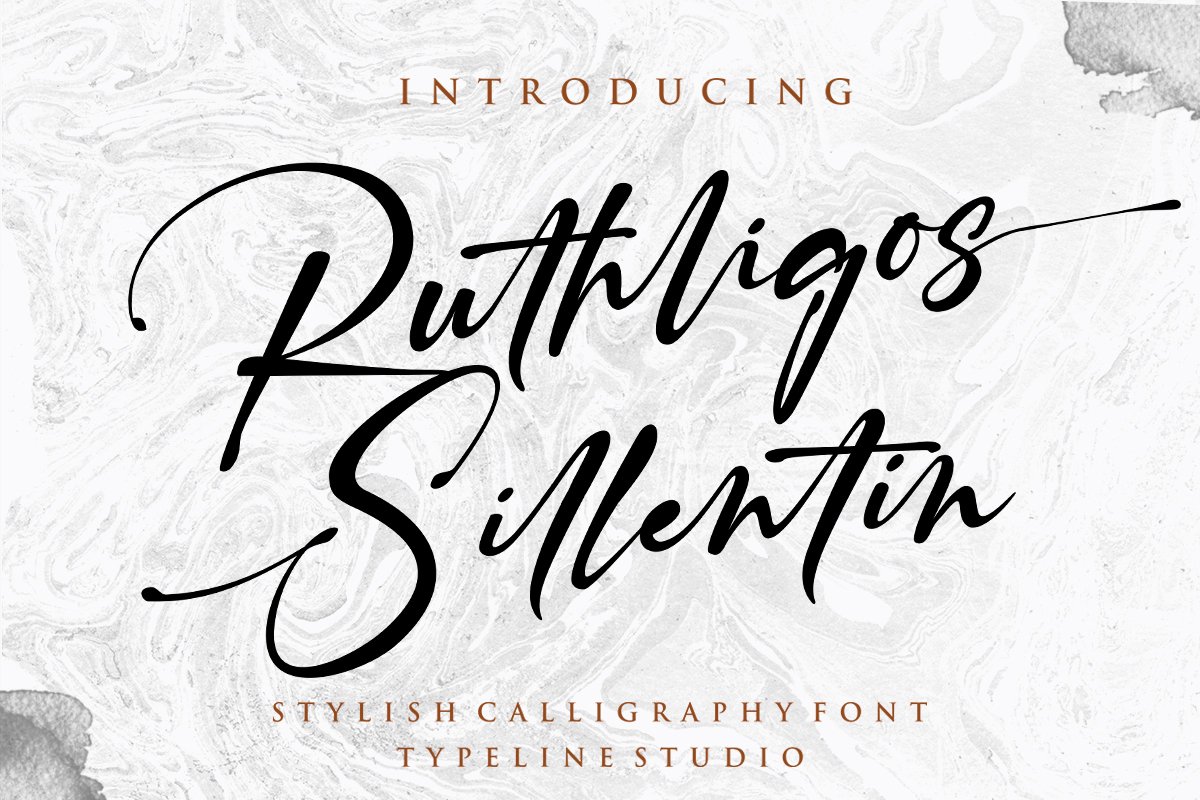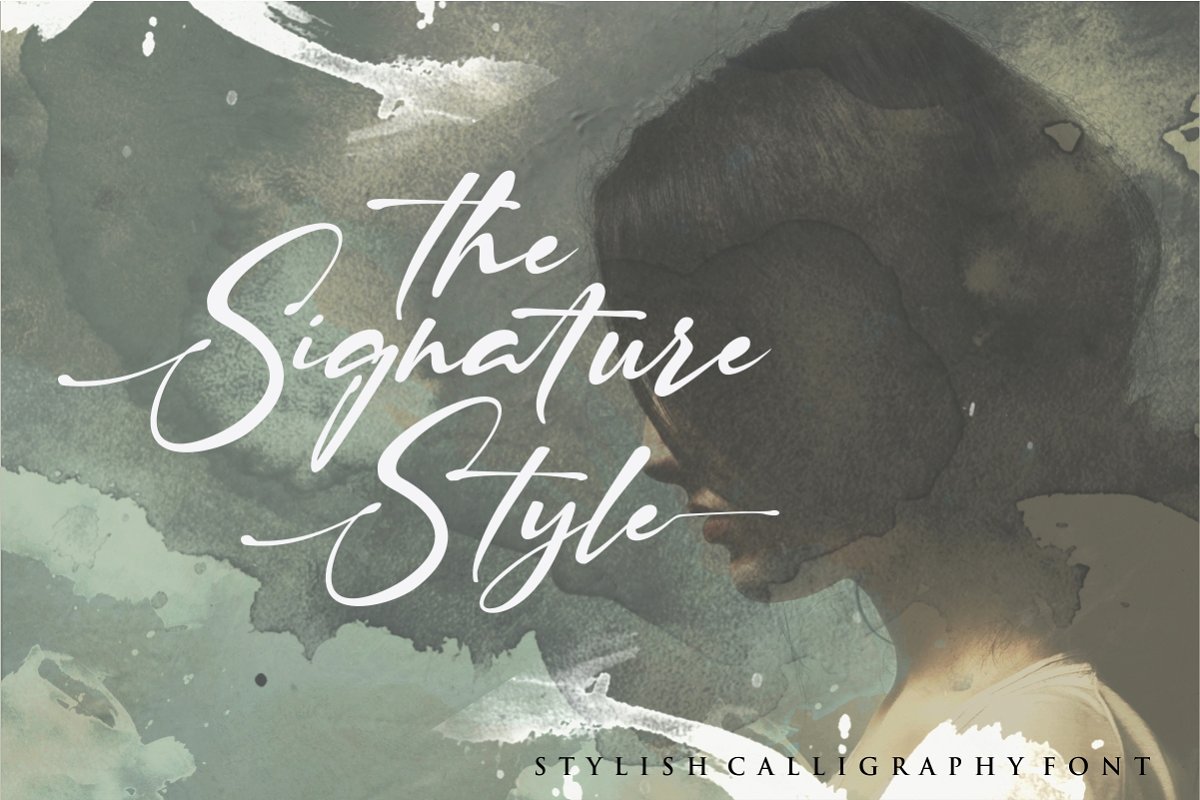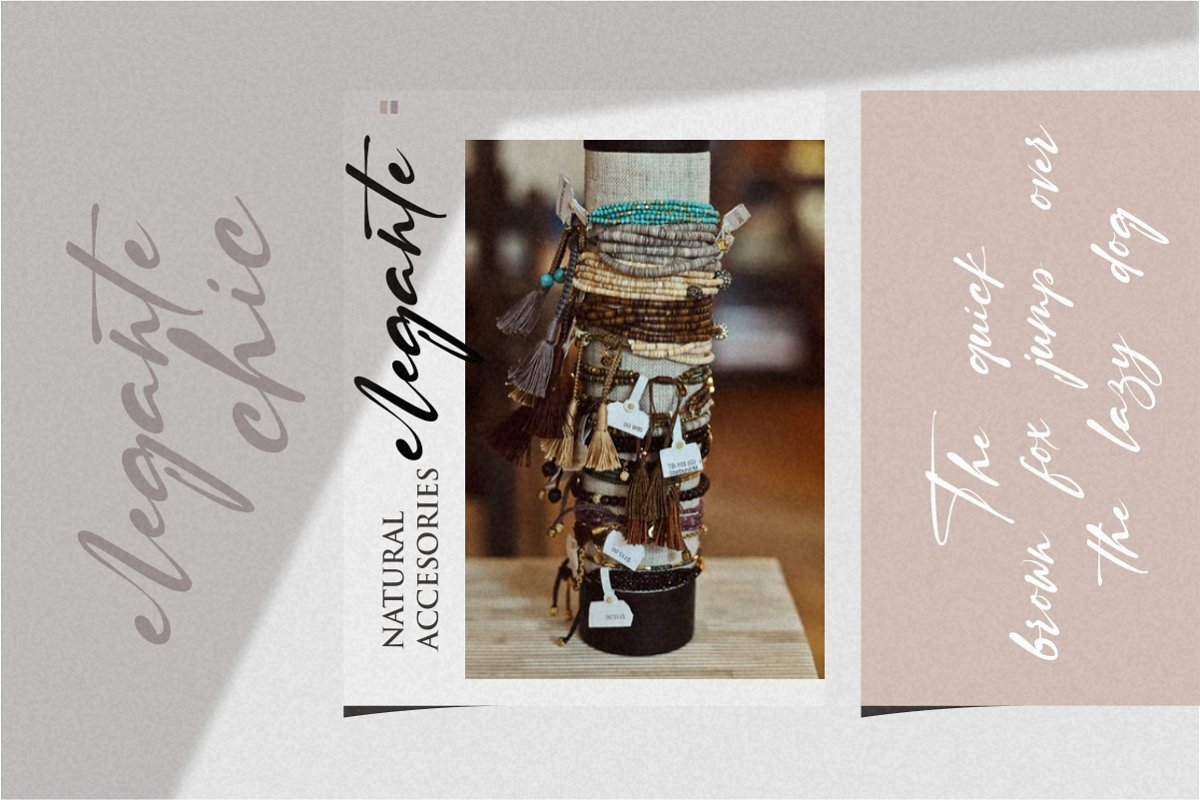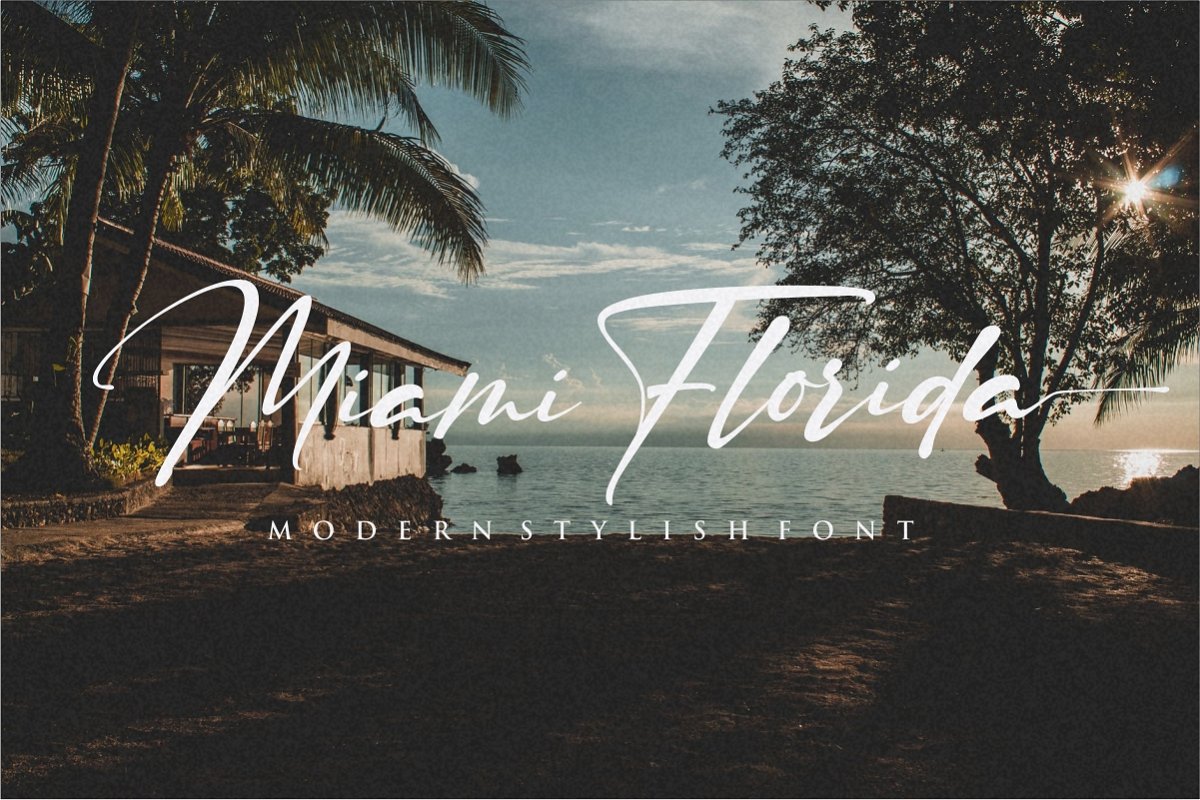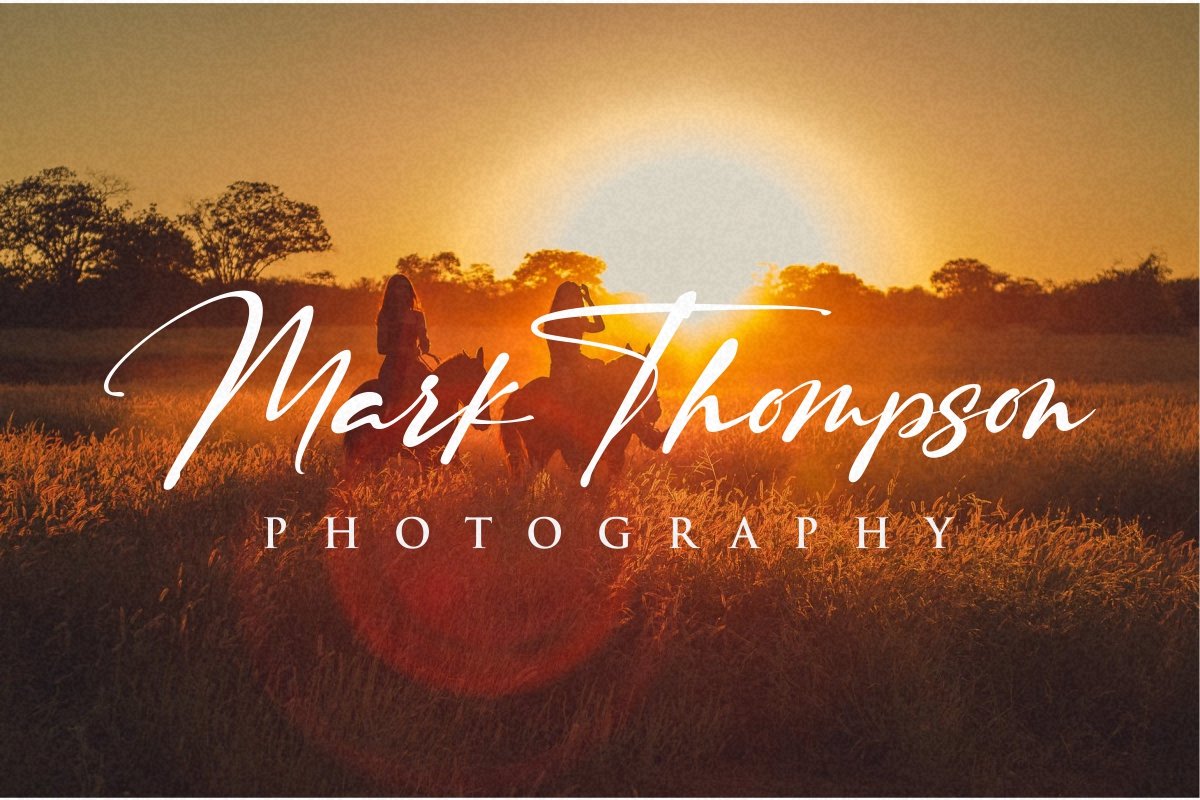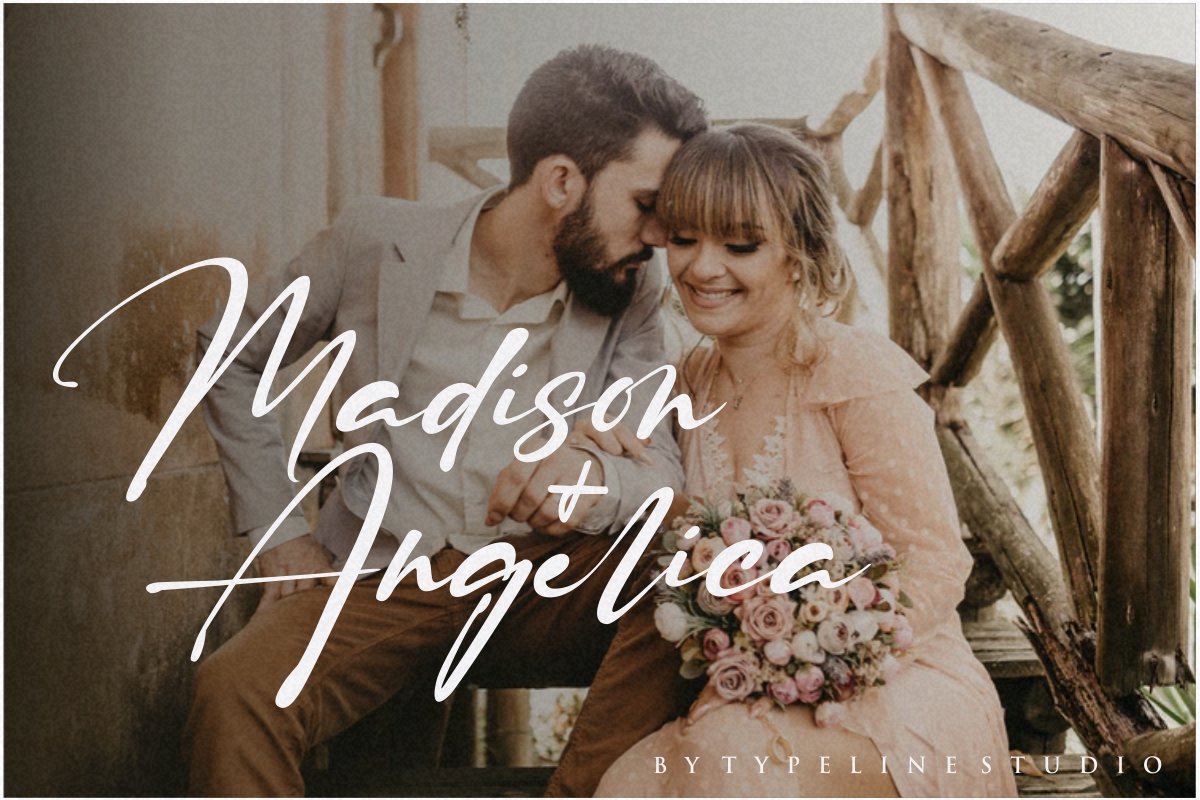
About the Ruthligos Font
Ruthligos Sillentin is a stylish modern Signature font with chic pressure, i hope this font perfect for creating signature logos and watermarks for photography studio or personal photography logo,best for initial or branding logo signature , I made it with a sense of elegant,professional,and unique!!Ruthligos Sillentin includes full set of beautifull hand lettered uppercase and lowercase letters,numerals, a large range of punctuation and 25 ligatures
All lowercase letters include beginning and ending swashes, giving realistic hand-lettered style, What you get, darling?You will get:Ruthligos Sillentin TTFRuthligos Sillentin OTFRuthligos Sillentin WOFFIn order to use the beautiful swashes,you need a program that supports OpenType features such asAdobe Illustrator CS, Adobe Photoshop CC, Adobe Indesign and Corel Draw